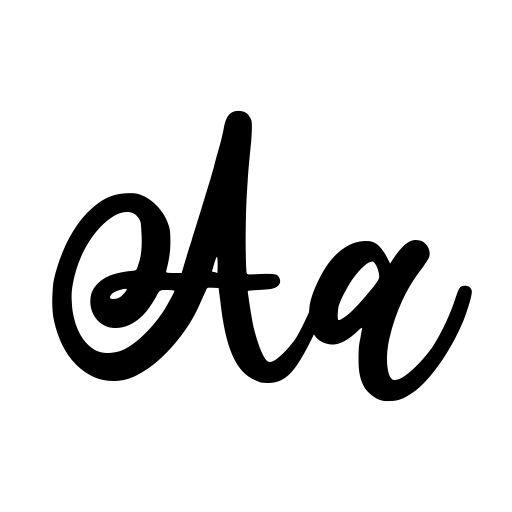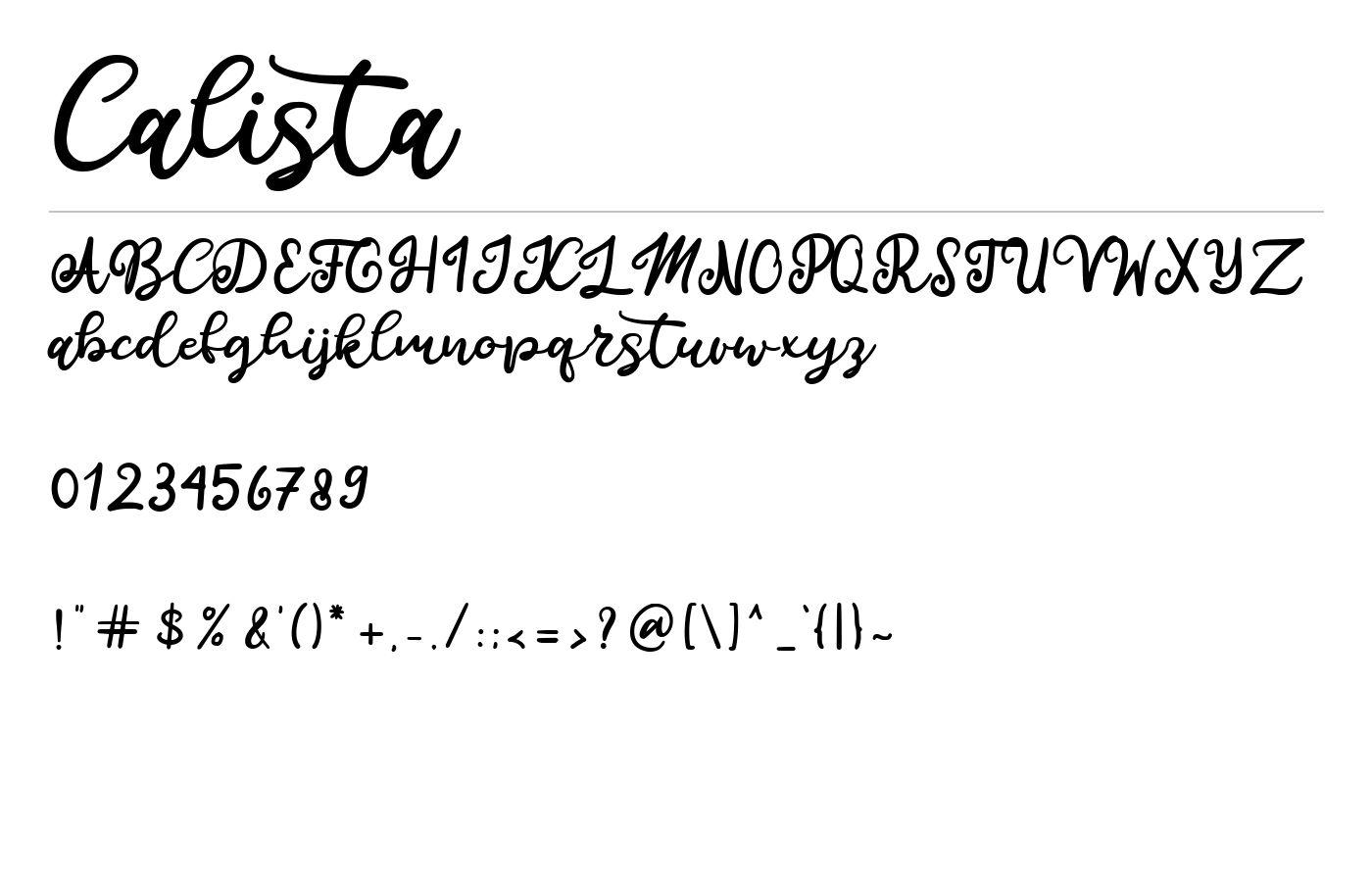
Calista is a stylish script font with a warm, inviting feel, featuring smooth, flowing strokes and moderate contrast that create a handwritten, personal touch. Its elegant yet playful character makes it ideal for invitations, branding, and creative projects where a friendly, approachable vibe is desired. Calista works best in headlines, logos, and packaging, adding a charming, artisanal quality to your designs.
Calista Font
About Calista Font
| Font family | Calista Font |
| Designer | Nanda Hardiansyah |